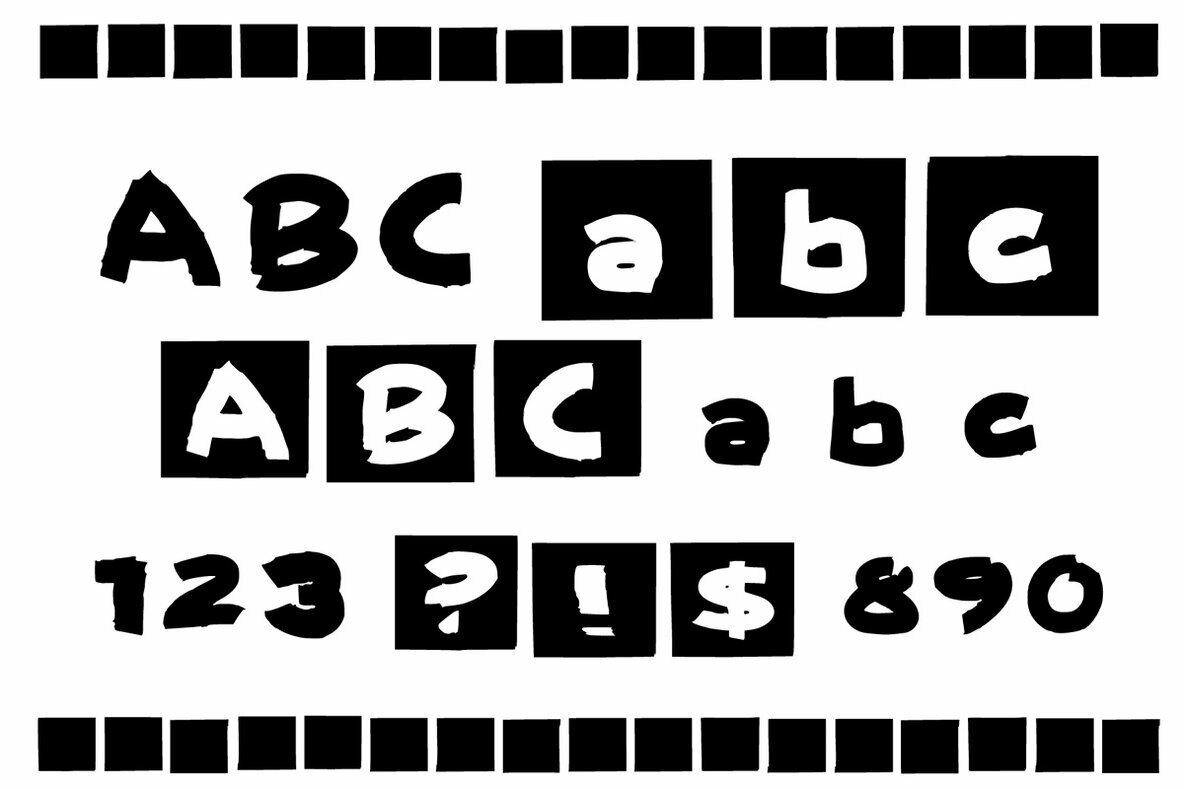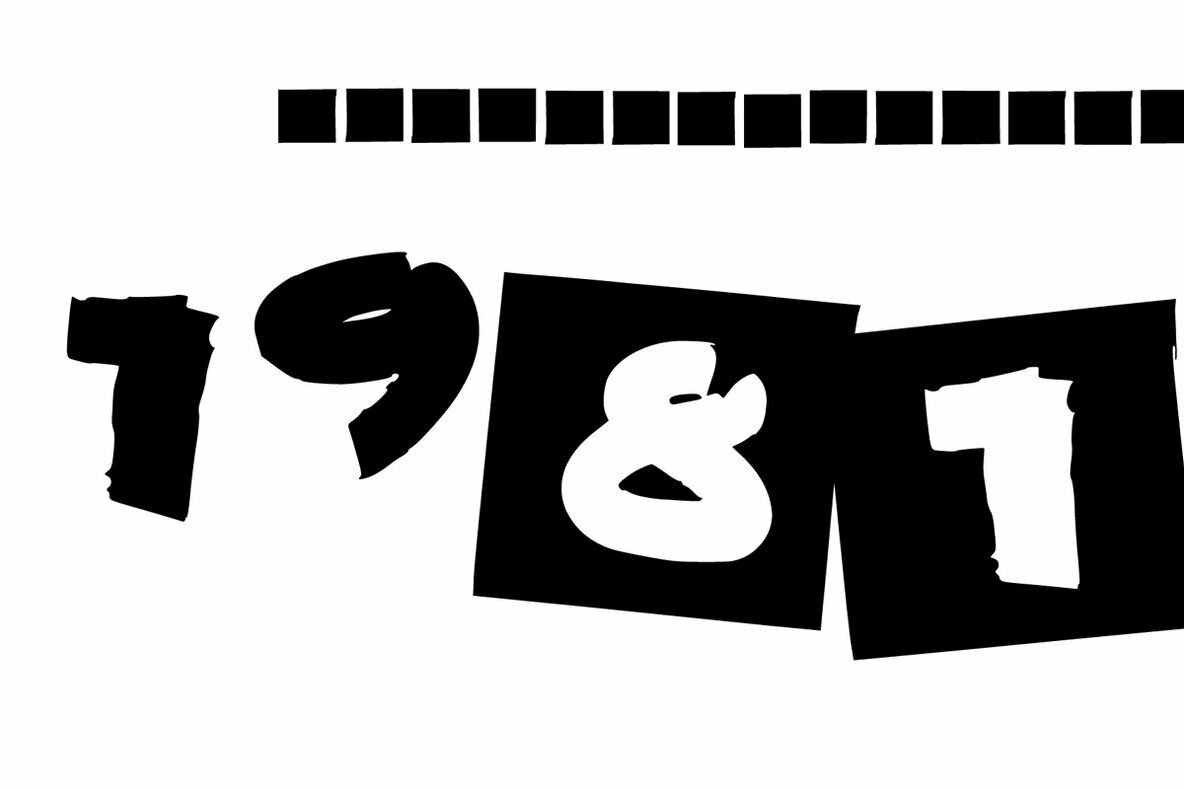
Urban Invert Font
Urban Invert is a bold and interesting handwritten font. Use it to make your ideas even more realistic and create spectacular designs!